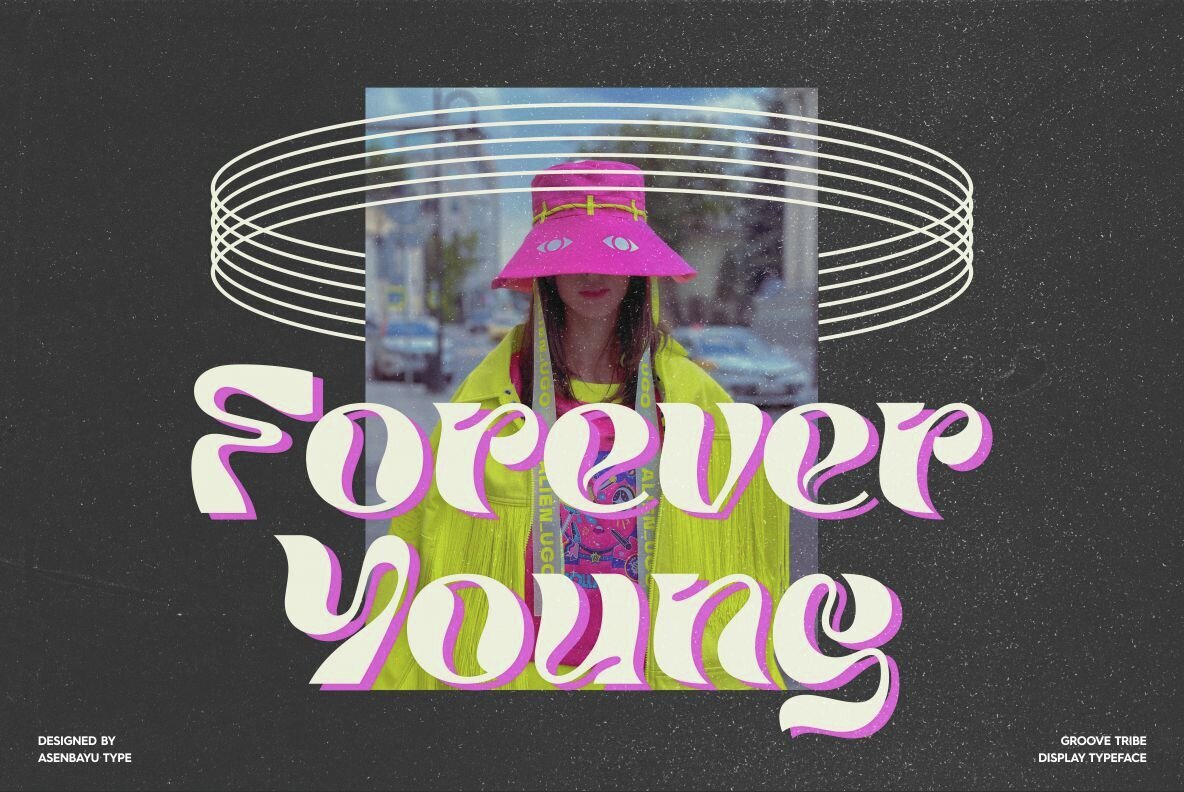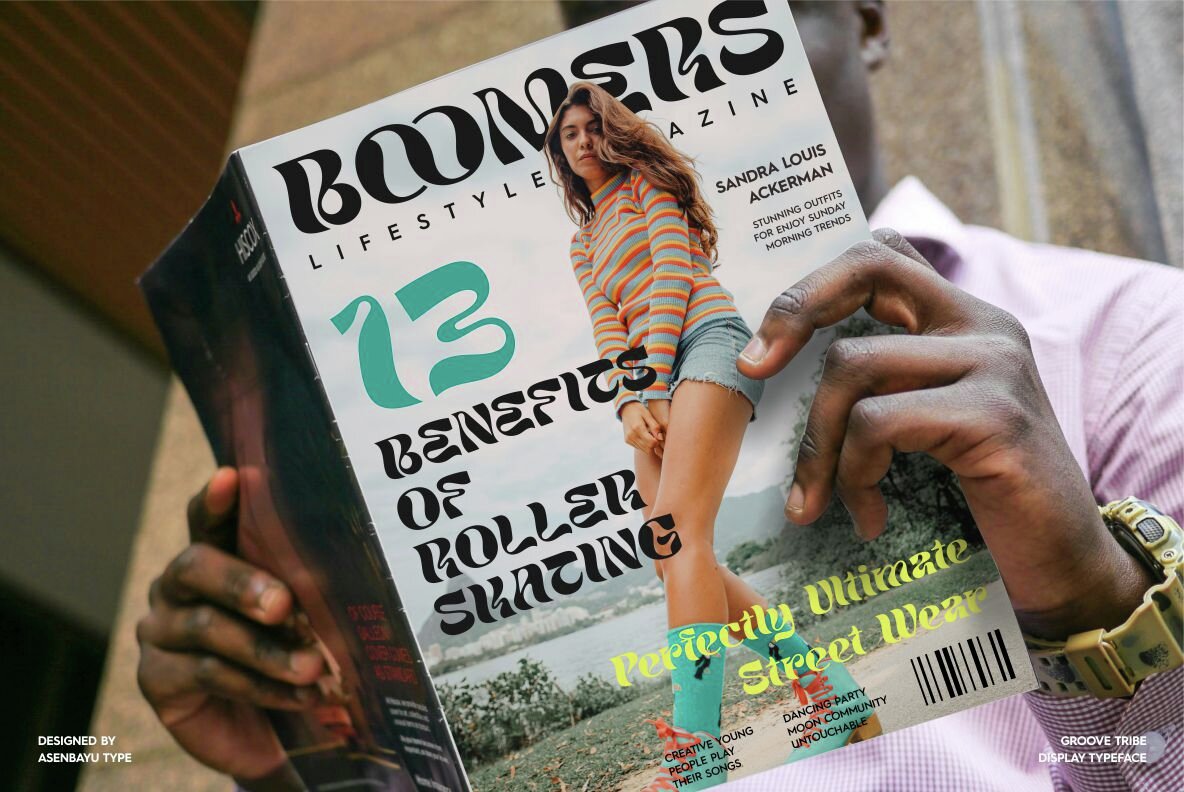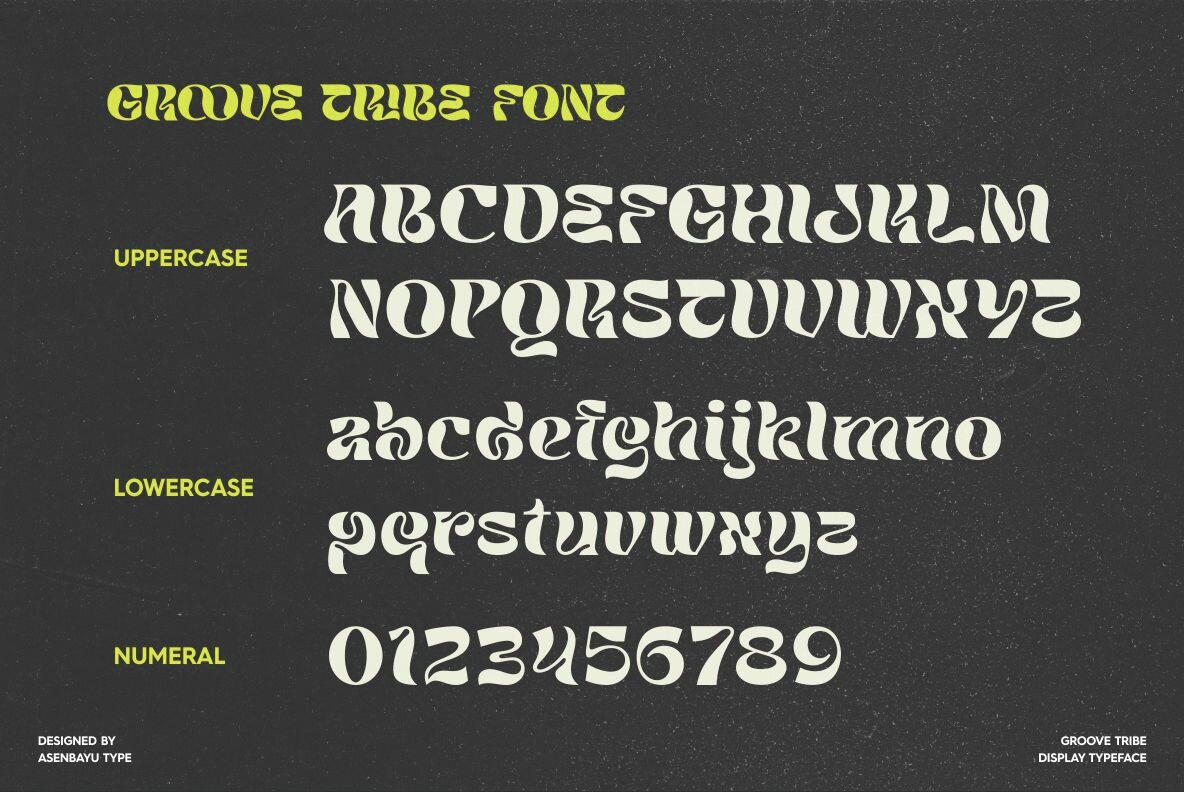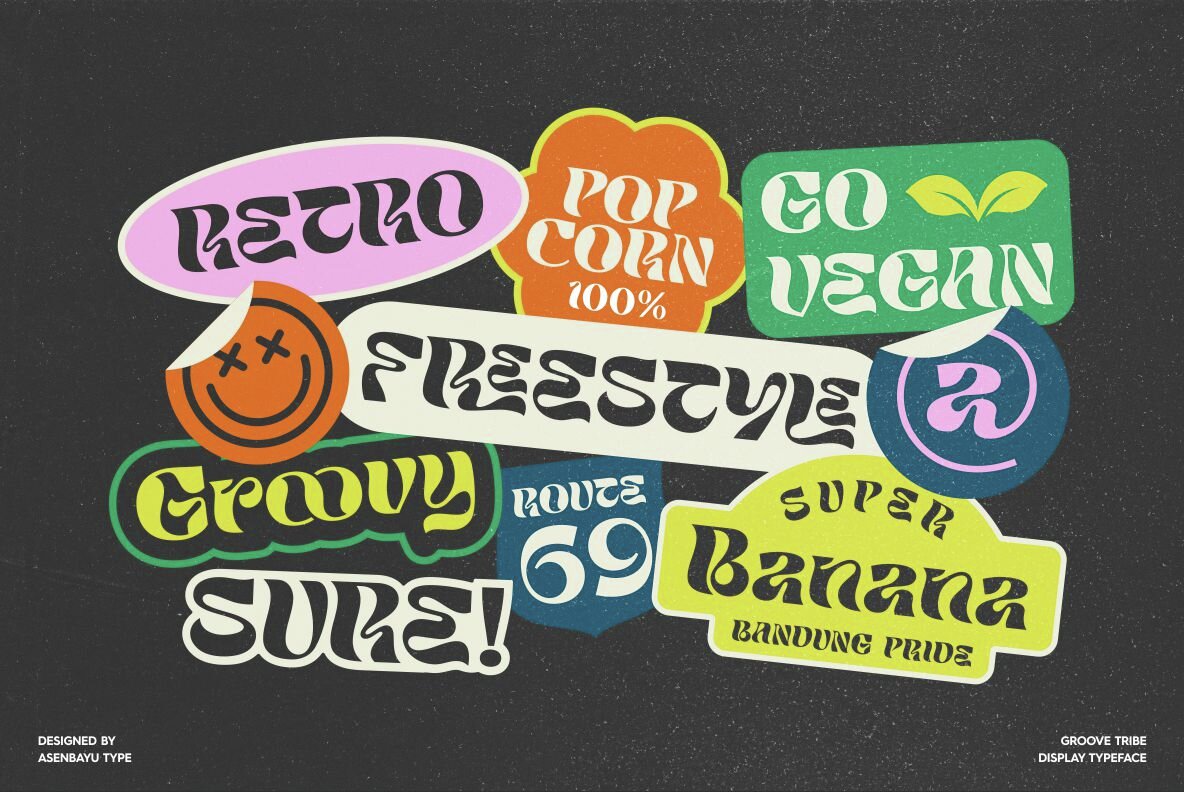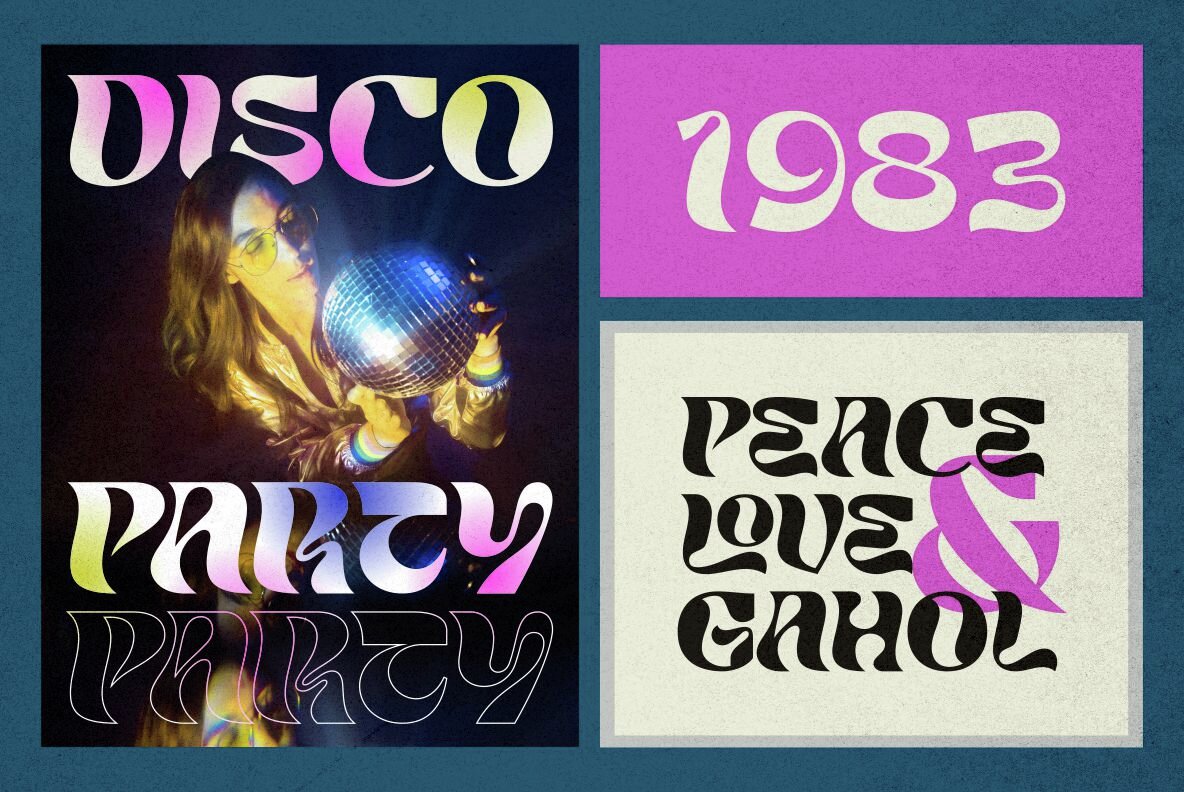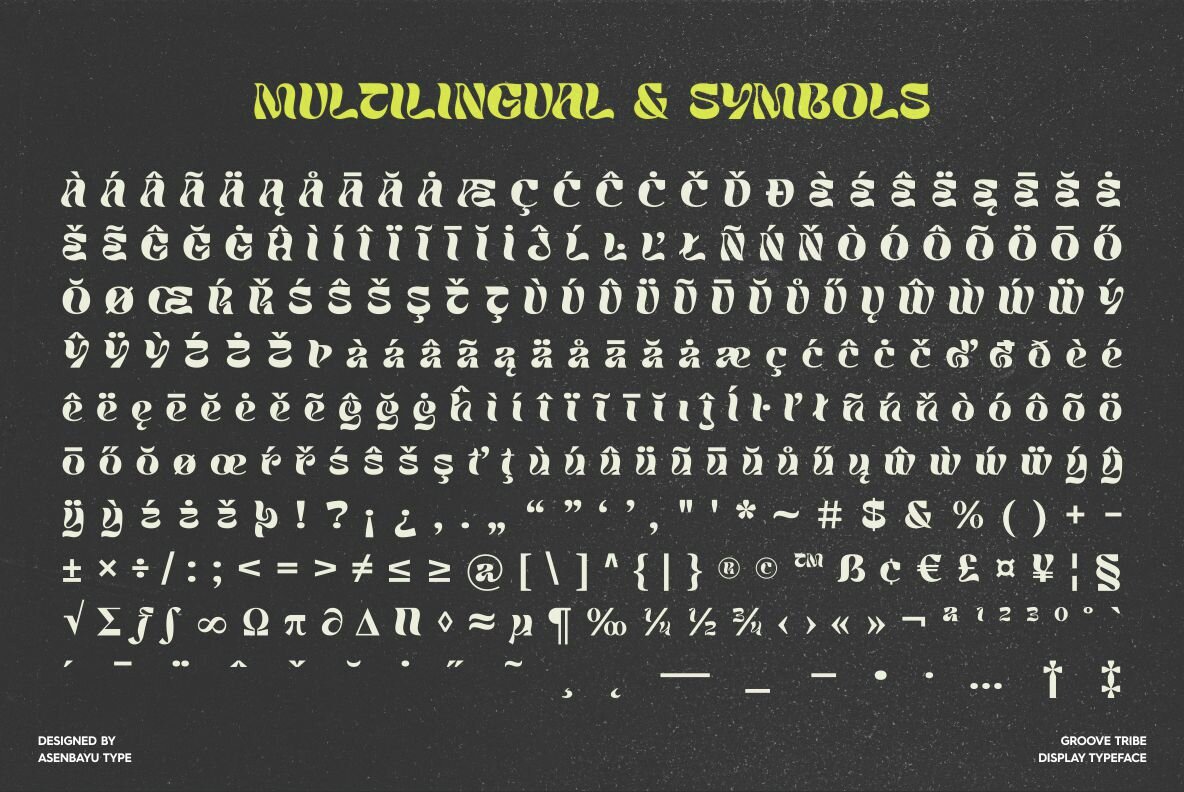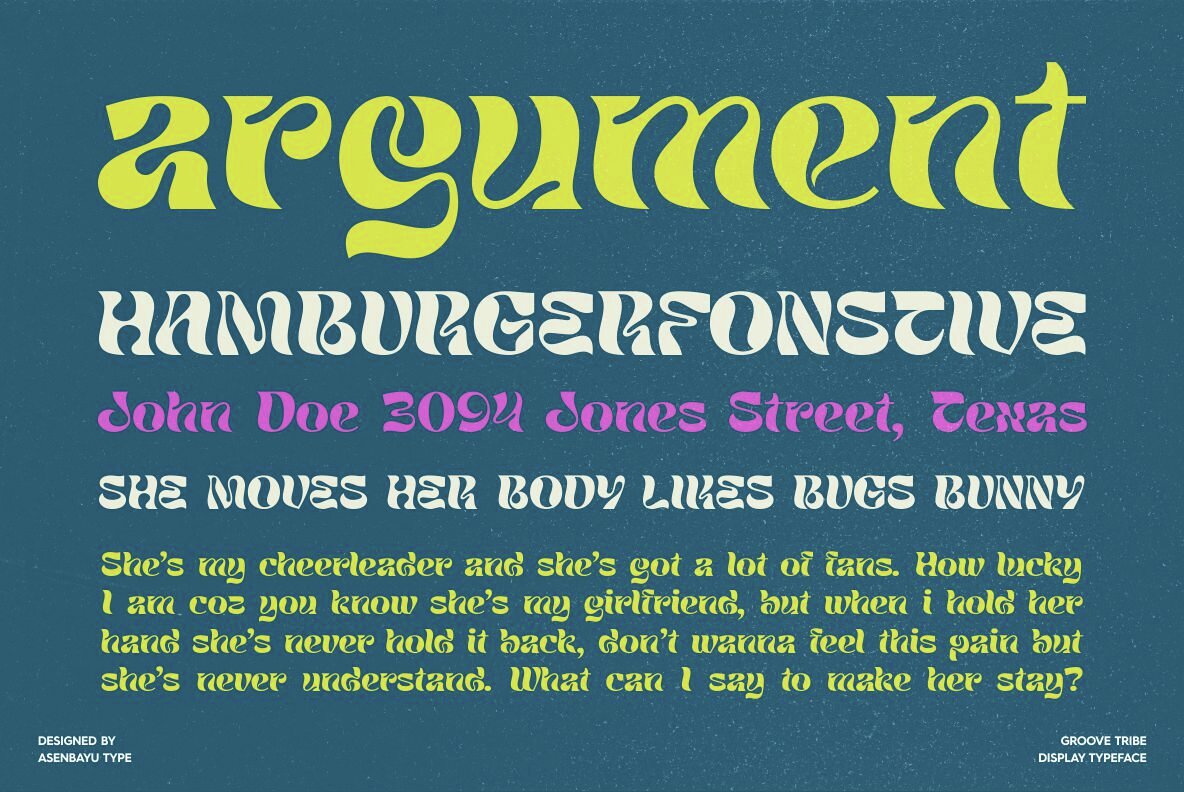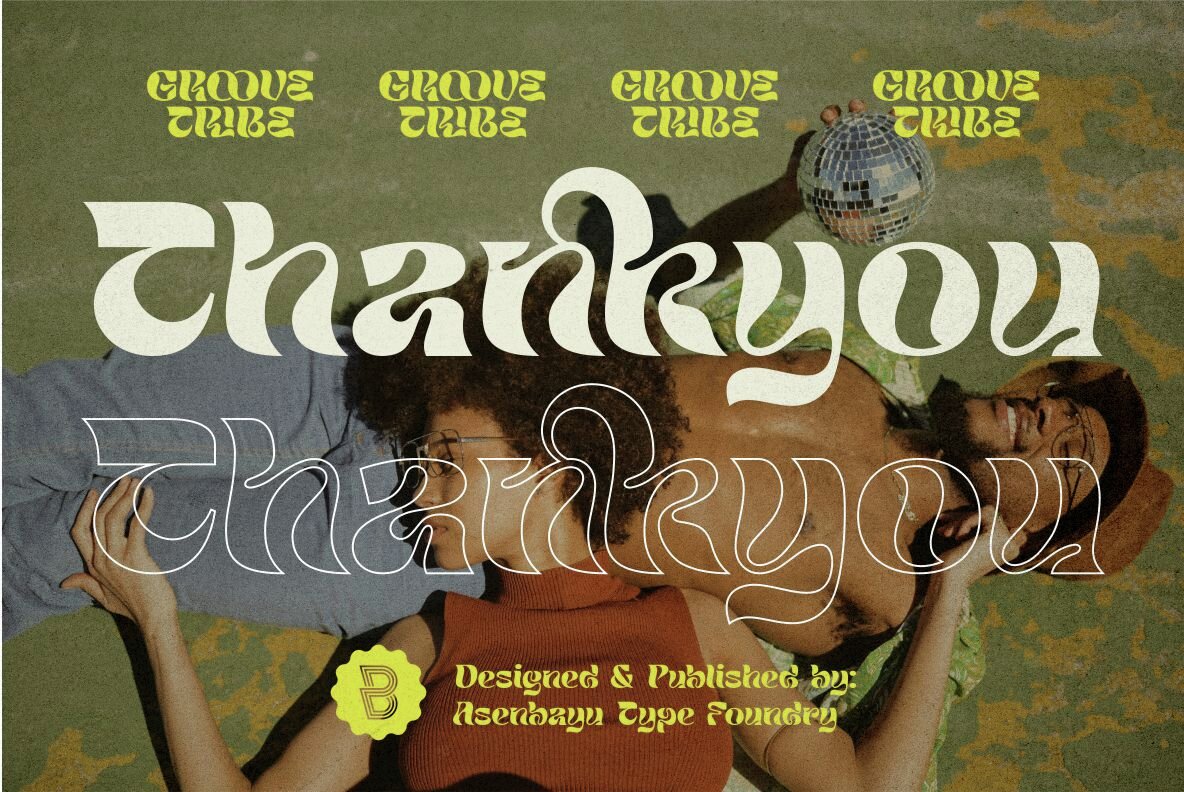
Groove Tribe Font
Groove Tribe Regular
Groove Tribe is a groovy display font. This font is characterized by a fluid and bold style that gives it a funky and youthful impression. This font perfect for modern retro design. Use it to convey desired logo designs, attractive posters, unique social media designs, fashion and websites. Groove Tribe font features: Kerning, standard glyphs, stylistic alternates, stylistic ligatures, symbol, punctuation and multiple languages supported.